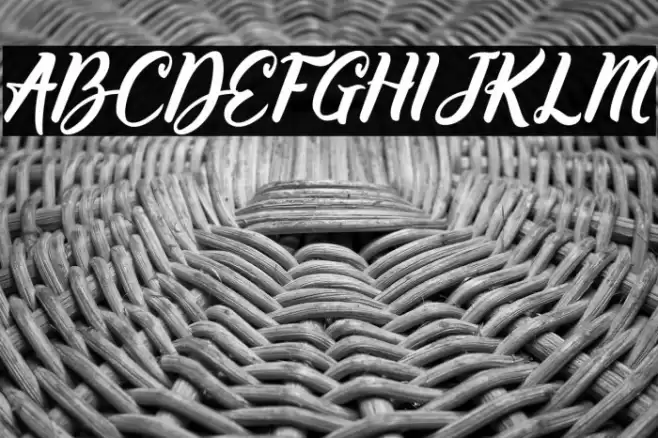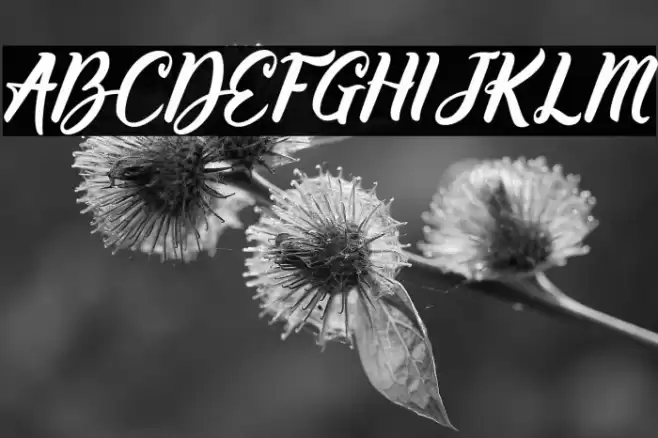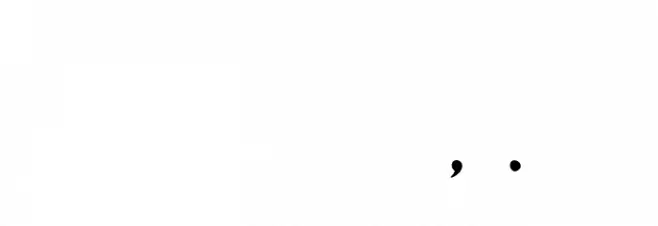
Willynta-Script Font
Willynta-Script Description
This elegant script font features a flowing, cursive style with smooth, rounded edges and a consistent stroke width that gives it a harmonious and sophisticated appearance. The uppercase letters are bold and prominent, while the lowercase letters maintain a graceful and fluid form. The font's design is characterized by its sweeping curves and stylish flourishes, making it ideal for creating a sense of elegance and refinement. The spacing between characters is balanced, allowing for readability while maintaining its decorative appeal. This font is perfect for projects that require a touch of class and sophistication.
A flowing, elegant script font with smooth curves and stylish flourishes from Uncategorized fonts.
- Font: Willynta-Script
- Proposed Projects: Wedding invitations, elegant branding, greeting cards, and luxury product packaging.
- Overall Style: Elegant, Decorative
- Use Case: Logos, Invitations, Branding